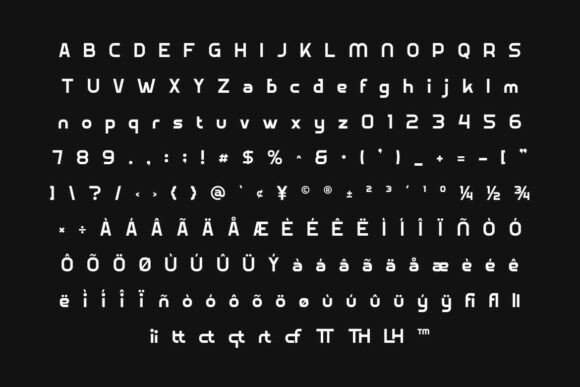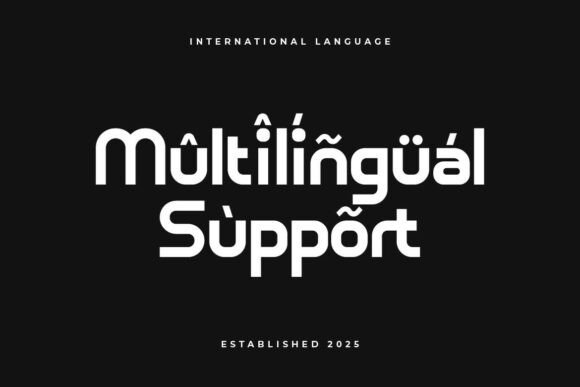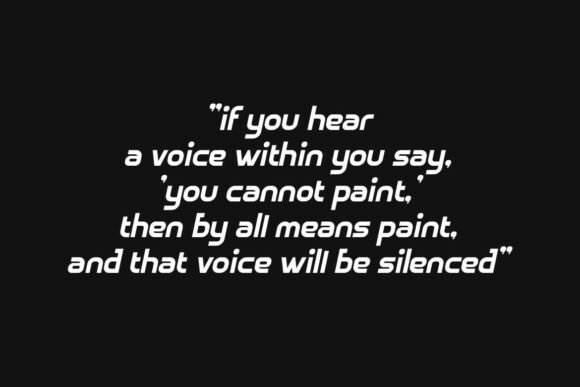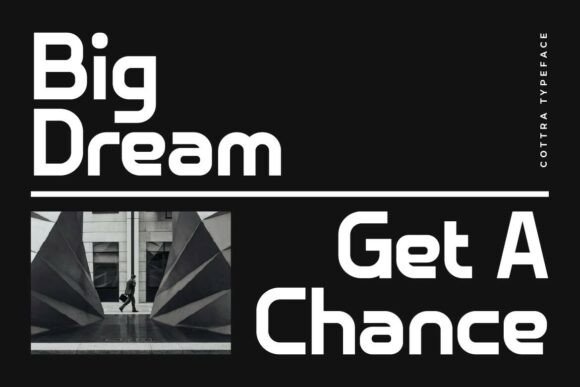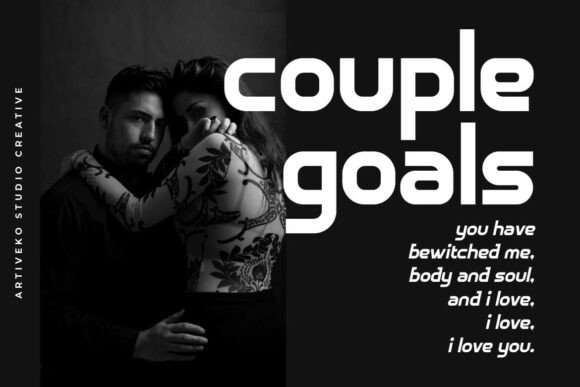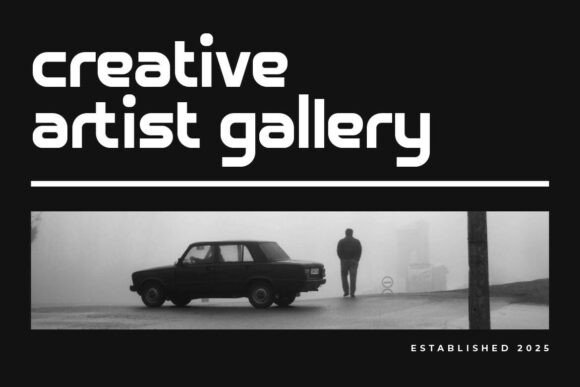
Cottra Font: Elevate Your Designs with a Fresh and Expressive Sans Serif
In the world of typography, fonts play a crucial role in conveying the tone and personality of a brand. For creators seeking a clean, stylish, and contemporary look, Cottra Font is an excellent choice. This fresh and expressive sans serif font is designed to bring a modern creative energy to various design projects, including branding, packaging, social media, posters, editorials, and digital interfaces.
What Makes Cottra Font Stand Out?
Cottra Font boasts several distinctive features that set it apart from other sans serif fonts. Its balanced proportions ensure that each letterform is harmonious and visually appealing, making it perfect for body text and headlines. The font’s subtle geometric influence provides a sense of structure and sophistication, while its slightly playful details add a touch of friendliness and approachability.
Key Characteristics of Cottra Font
• Balanced Proportions: Cottra’s letters are carefully crafted to maintain a perfect balance between width and height, creating a sense of harmony and stability.
• Subtle Geometric Influence: The font’s geometric undertones add a level of sophistication and modernity, making it ideal for designs that require a clean and contemporary look.
• Slightly Playful Details: Cottra’s playful touches, such as subtle rounded edges and carefully designed letterforms, bring a sense of warmth and approachability to the font.
• Clean and Stylish: Cottra’s sans serif design ensures that the font remains clean and stylish, even at smaller sizes.
Use Cases for Cottra Font
Cottra Font is an incredibly versatile typeface that can be used in a wide range of design projects, including:
• Branding: Cottra’s modern and stylish design makes it perfect for logos, wordmarks, and other branding applications.
• Packaging: The font’s clean and contemporary look is well-suited for product packaging, labels, and other marketing materials.
• Social Media: Cottra’s playful and expressive nature makes it ideal for social media graphics, posts, and stories.
• Posters and Editorials: The font’s bold and eye-catching design is perfect for posters, editorials, and other print materials.
• Digital Interfaces: Cottra’s clean and legible design makes it suitable for digital interfaces, such as websites, apps, and video games.
Why Choose Cottra Font?
With so many fonts available, why choose Cottra? Here are a few compelling reasons:
• Unique and Expressive: Cottra’s distinctive design ensures that your projects stand out from the crowd.
• Highly Versatile: The font’s wide range of use cases makes it an excellent addition to any designer’s toolkit.
• Easy to Read: Cottra’s clean and legible design ensures that your message is communicated clearly and effectively.
• Modern and Sophisticated: The font’s geometric influence and subtle playful details bring a sense of modernity and sophistication to your designs.
Cottra Font is an exceptional sans serif typeface that offers a fresh and expressive design solution for creators. Its balanced proportions, subtle geometric influence, and slightly playful details make it perfect for a wide range of design projects. Whether you’re working on branding, packaging, social media, or digital interfaces, Cottra Font is an excellent choice. With its unique and expressive design, high versatility, and ease of readability, Cottra is sure to elevate your designs and bring a modern creative energy to your projects.